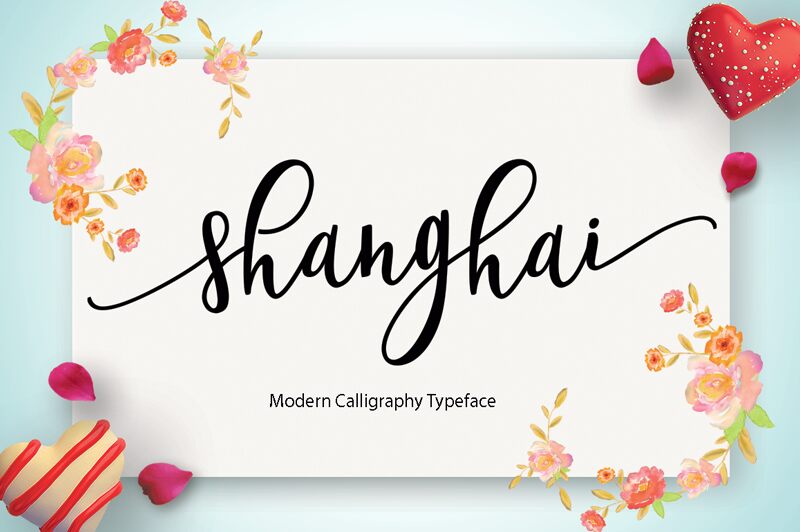
Shanghai Script, designed by Moriztype, is a striking modern calligraphy font with a semi-light weight. Its elegant and fluid strokes effortlessly capture the essence of handwritten script. This font is perfect for luxurious branding projects, such as high-end fashion labels or upscale beauty products.
Its delicate curves and refined lines also make it well-suited for wedding invitations and stationery designs, adding a touch of sophistication to any special occasion. With Shanghai Script, bring a touch of timeless elegance to your next design project.